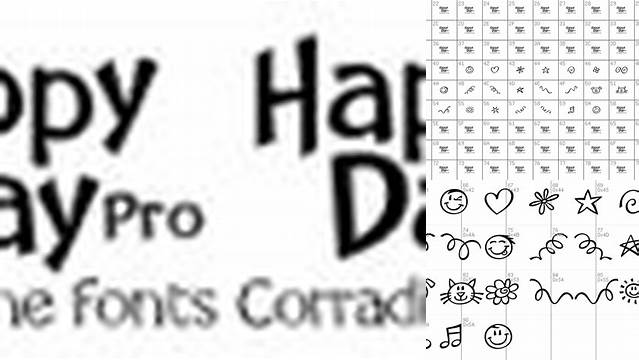
Happy Day Dingbats Font: A Delightful Introduction
Hey guys! Are you looking to inject some fun and personality into your designs? Well, look no further because we're diving headfirst into the world of the Happy Day Dingbats font! This font is not your average text-based font; instead, it's a treasure trove of charming symbols, icons, and illustrations that can instantly elevate your projects. From creating eye-catching social media graphics to designing playful invitations and sprucing up your website, the Happy Day Dingbats font has got you covered. The beauty of this font lies in its simplicity and versatility. It's incredibly user-friendly, even if you're not a design guru. All you need to do is type a specific letter or character, and bam! You've got a cute little picture ready to go. Think of it as a secret code that unlocks a whole gallery of delightful imagery. The Happy Day Dingbats font is perfect for adding a touch of whimsy to a variety of creative endeavors. Are you preparing for a children's birthday party? This font will allow you to create fun invitations and decorations. Do you want to design an engaging poster for a community event? Look no further! It’s also great for making educational materials more appealing or even crafting unique logos. With its friendly and approachable style, the Happy Day Dingbats font will surely grab the attention of your audience, making your projects more memorable and engaging. Furthermore, one of the best things about this font is that it’s easily accessible. There are numerous websites that offer it as a free download. We'll explore how to find and download this awesome font, so you can start experimenting with it right away. So, prepare to unlock the fun and let your creativity run wild!
Key Features and Benefits of the Happy Day Dingbats Font
Okay, let's dive into the nitty-gritty and see what makes the Happy Day Dingbats font so special. First off, the variety is amazing! The font includes a wide array of symbols, ranging from cute animals and adorable hearts to stars, arrows, and even little food icons. There’s something for every project. This diversity is a major advantage, as it saves you time and effort from having to create these graphics from scratch or searching for them individually. The Happy Day Dingbats font allows you to be creative at any moment. Second, the font is incredibly easy to use. All you need to do is install it on your computer, and then start typing. Each letter corresponds to a specific image, so it's easy to learn the different symbols. There's often a character map available, which is like a cheat sheet that shows you which letter corresponds to which image. It's a game-changer for those who are not pro designers. Third, the font's versatility makes it a must-have tool. You can use it for everything from creating invitations and greeting cards to designing logos, website elements, and social media posts. The possibilities are endless! If you're working on a project for children, the font can add a playful and engaging touch. If you're creating a design for a professional setting, you can use the symbols to add a touch of personality and visual interest. Fourth, it helps save you time and money. Instead of hiring a designer or buying stock images, you can create your own unique graphics using the font. This is especially helpful for those who are on a budget or have limited time. Lastly, the Happy Day Dingbats font adds a personal touch to your work. By using unique symbols and icons, you can create designs that are more original and memorable. This is especially helpful for branding and marketing, as it helps you stand out from the crowd and connect with your audience. This font isn't just a tool; it's a gateway to creativity and self-expression.
Creative Project Ideas Using the Happy Day Dingbats Font
Okay, time to unleash your inner designer, guys! The Happy Day Dingbats font is a goldmine of possibilities, and here are some awesome project ideas to get your creative juices flowing. First up, let’s create custom invitations! This font is absolutely perfect for birthday parties, baby showers, or any special event. Design invitations with charming illustrations of balloons, presents, or cute animals to set the perfect tone. Make a character map and share it with your guests, so they can also use the font and create their own fun messages. Then, let's think about creating eye-catching social media graphics. Use the dingbats to create engaging posts for platforms like Instagram, Facebook, or Pinterest. Incorporate hearts, stars, or arrows to highlight important information or to grab your audience's attention. Make your social media feed pop with this font. Another great idea is to design fun and informative educational materials. Use the font to create flashcards, posters, or worksheets for kids. The cute illustrations can help make learning more enjoyable. Create a visual dictionary or a matching game using the dingbats for an interactive learning experience. And don't forget about designing unique logos and branding elements! This font is perfect for creating logos for small businesses, craft projects, or personal brands. Combine the dingbats with other fonts and graphic elements to create a unique and memorable brand identity. You can also create custom greeting cards! Design personalized greeting cards for birthdays, holidays, or special occasions. Use the dingbats to add a touch of whimsy to your messages and make your cards stand out from the crowd. You can even create themed collections of cards featuring different dingbats. So, what are you waiting for? Start creating and have fun! Remember that the key to successful projects is to let your creativity flow and don't be afraid to experiment with different combinations of dingbats and other design elements.
The Perfect Font for Your Next Project
So, there you have it, guys! Everything you need to know about the Happy Day Dingbats font. This font is a fantastic resource for anyone looking to add a touch of fun and whimsy to their designs. From invitations and social media graphics to educational materials and logos, the possibilities are truly endless. Remember, the key to mastering this font is to explore, experiment, and have fun! Embrace the versatility of the Happy Day Dingbats font, and don't be afraid to mix and match the symbols with other fonts and design elements to create unique and eye-catching projects. Whether you're a seasoned designer or a complete beginner, this font is super easy to use and will add a special touch to any project. As you start using the font, you'll discover new ways to incorporate it into your designs. You might find yourself using it in unexpected ways, adding a touch of personality and playfulness to even the most professional projects. Don’t forget to download the font from a reliable source, install it correctly, and refer to the character map to unlock the full potential of the dingbats. So go ahead and give it a try! Your audience will definitely appreciate the creativity. With a little practice, you'll be creating awesome designs in no time. Happy designing!